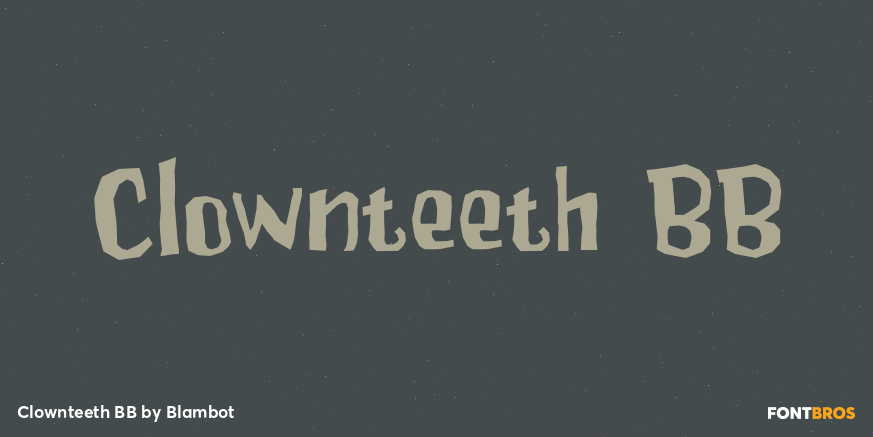
Clownteeth BB
Font Family by Blambot
Clownteeth BB is a playful handwritten display font family with a fun, wacky attitude. Its loose, lively letterforms give headlines and short copy an offbeat, cartoon-like energy that feels casual, expressive, and full of personality.
With 2 styles included—Regular and Italic—this family gives you a simple way to add motion and variety while keeping the look consistent. It’s a natural fit for comic-inspired work, humorous branding, posters, social graphics, kids’ projects, and other display uses that call for an intentionally quirky handwritten voice.
Created by Blambot, this family is especially well suited to designs that want to feel informal, animated, and a little mischievous without losing readability.